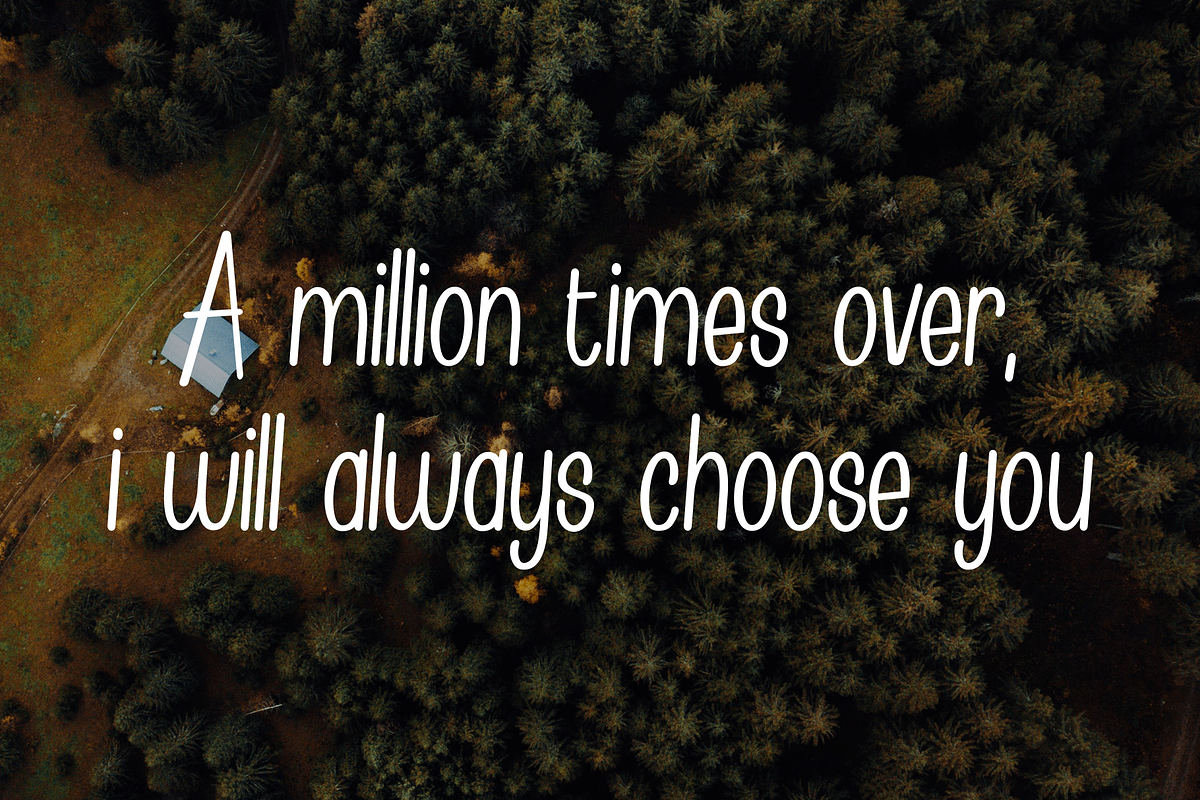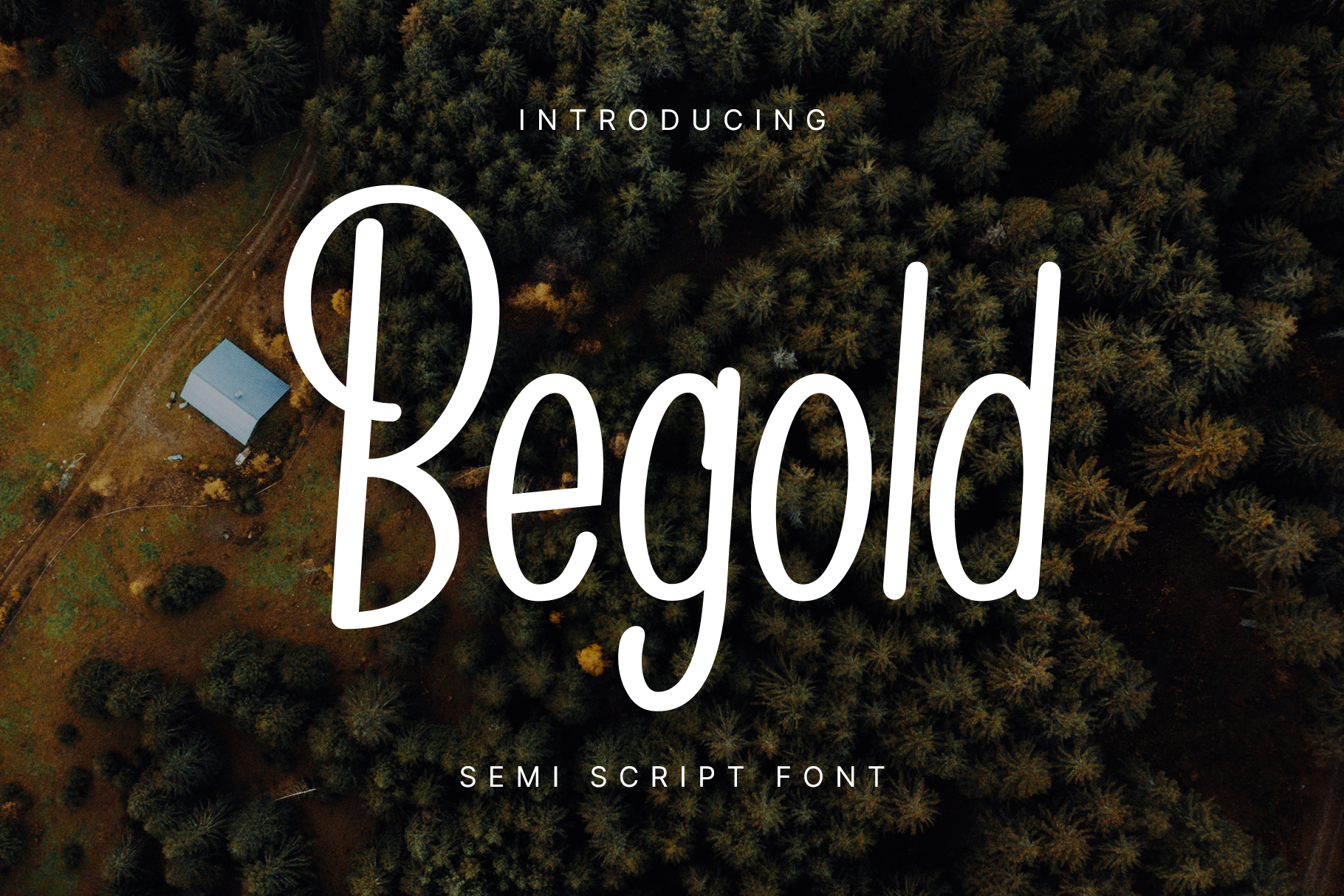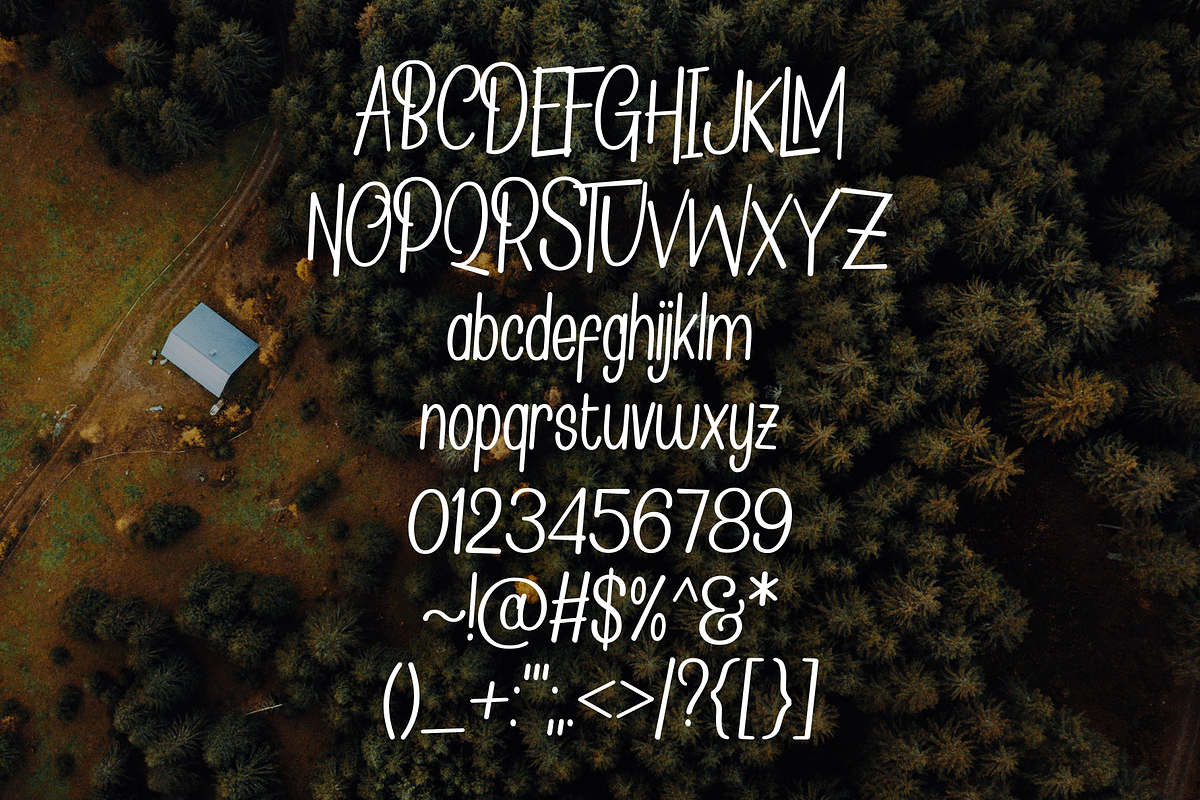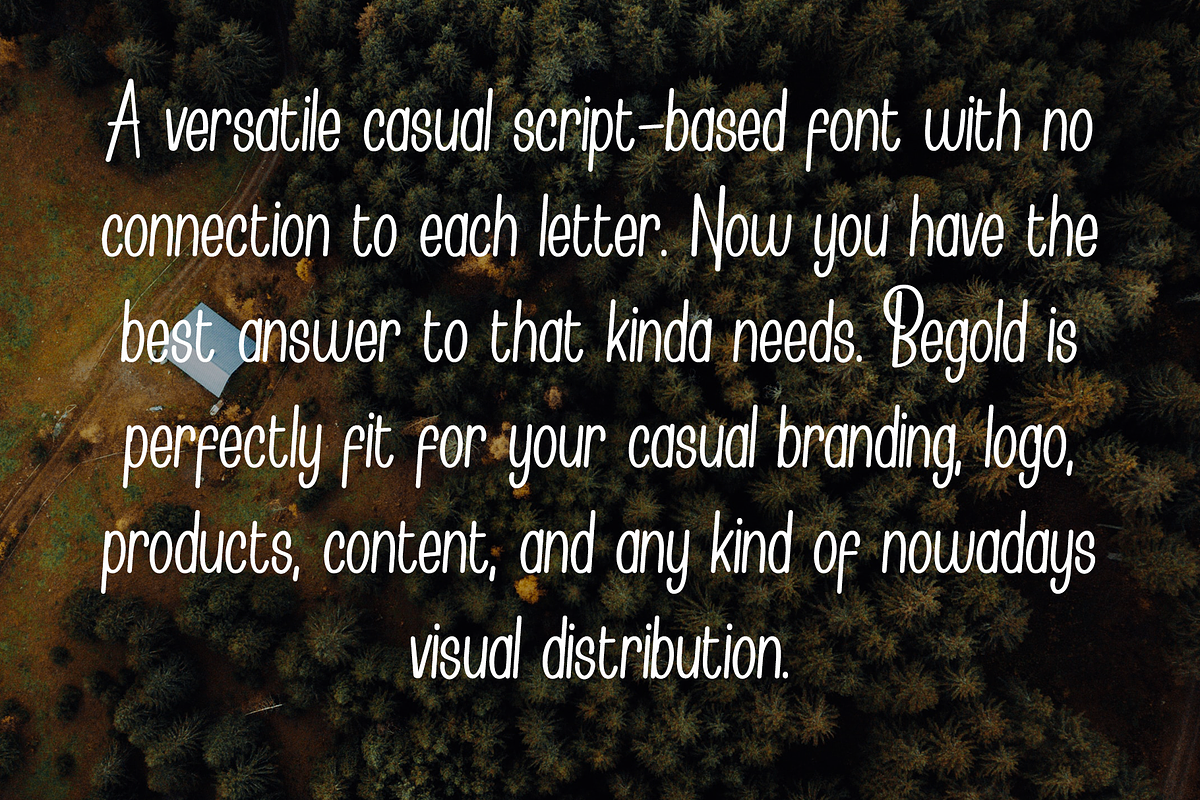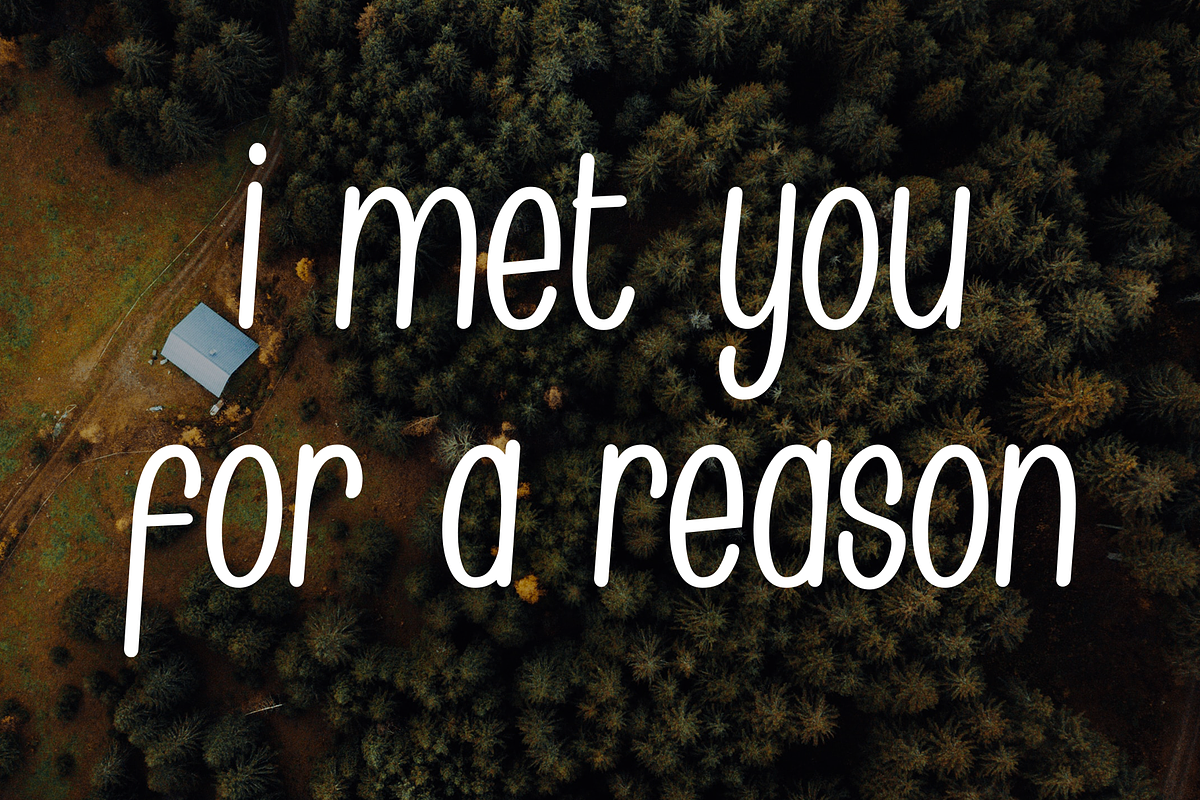
Begold – Semi Script Fonts
A versatile casual script-based font with no connection to each letter. Now you have the best answer to that kinda needs. Begold is perfectly fit for your casual branding, logo, products, content, and any kind of nowadays visual distribution.